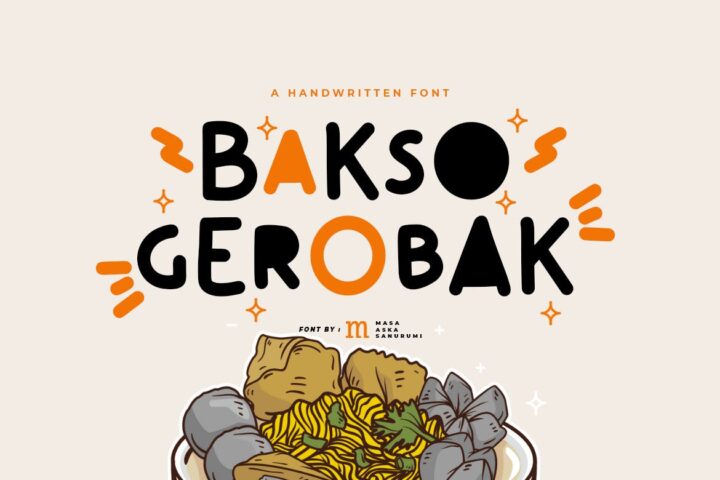
Bakso Gerobak | A Handwritten Font
Introducing, Bakso Gerobak is a handwritten font suitable for your design project needs, such as; birthday theme, social media posts, quotes, overlays on images, posters, print needs, website banners, and more.
A set of uppercase and lowercase glyphs
Number, symbol, and punctuation
Multilingual Support